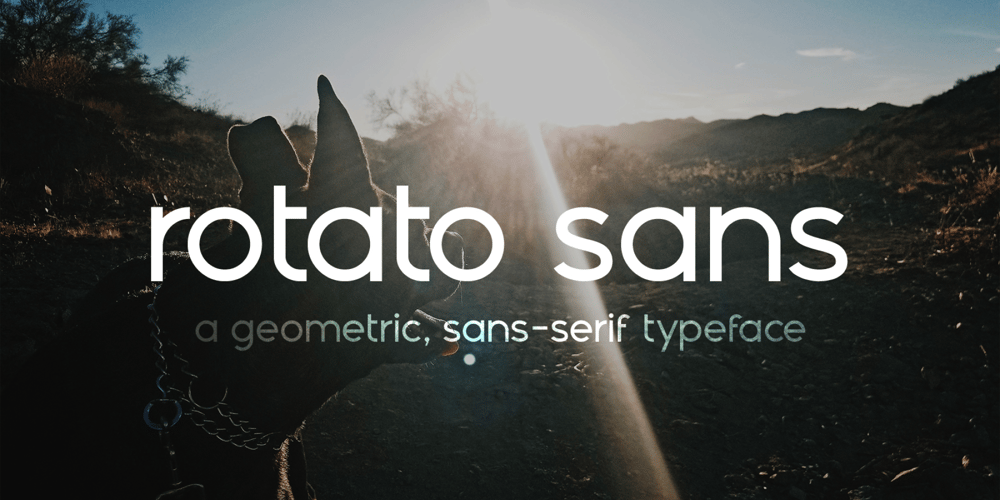
Rotato Sans Font Family was designed by Vip Sitaraman and published by VIP Graphics. Rotato Sans contains 3 styles and family package options. Rotato Sans is a geometric sans-serif typeface that brings a fresh, modern look to any design. This minimalist but distinctive font is defined by its crisp composition and symmetrical elements — designed for optimal legibility at all sizes.Available in three different weights, Rotato leaves an understated impression of elegance & futurism!Currently available in three standard weights (more coming soon): Rotato Sans Bold – Strong and futuristic Rotato Sans Regular – Clean and crisp Rotato Sans Light – Elegant and modern FEATURES Three (3) Font Weights + Italics Numbers & Punctuation Special Characters Rotato Sans is a dynamic font that works great across various applications: from branding & logos to technology & fashion — whether in a giant heading, or paragraphs of body text.